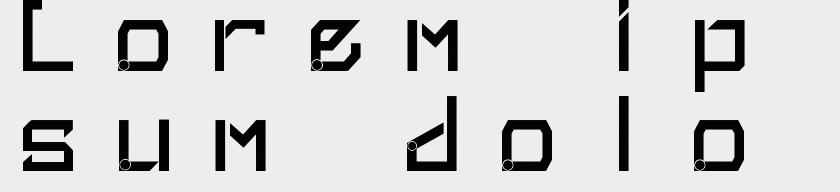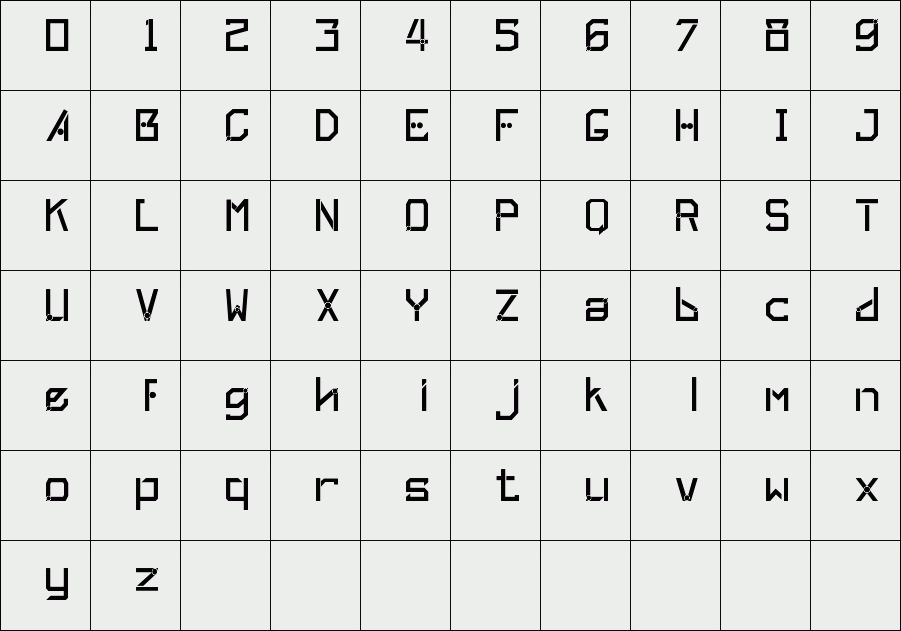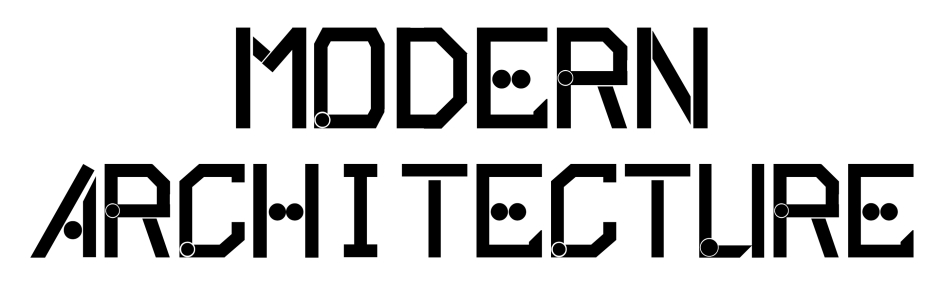
Modern Arch
The concept of this font is, Modern Architecture, where the font uses basic shapes such as rectangle and circle. The font reflect the theme that it can be used for any architectural purposes.